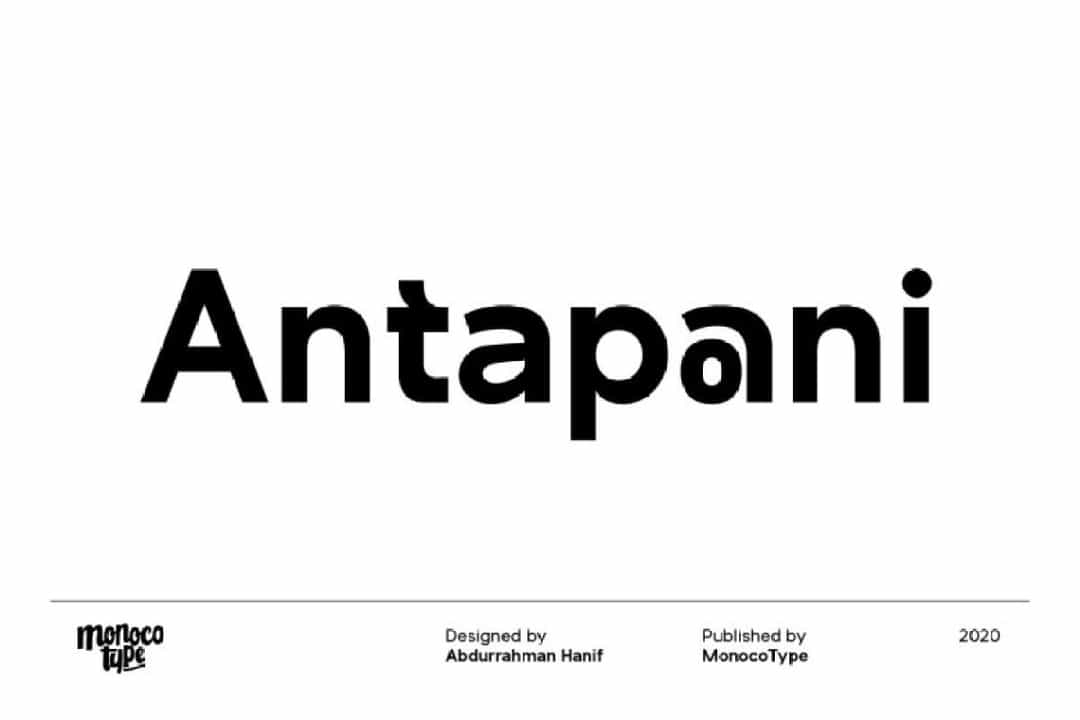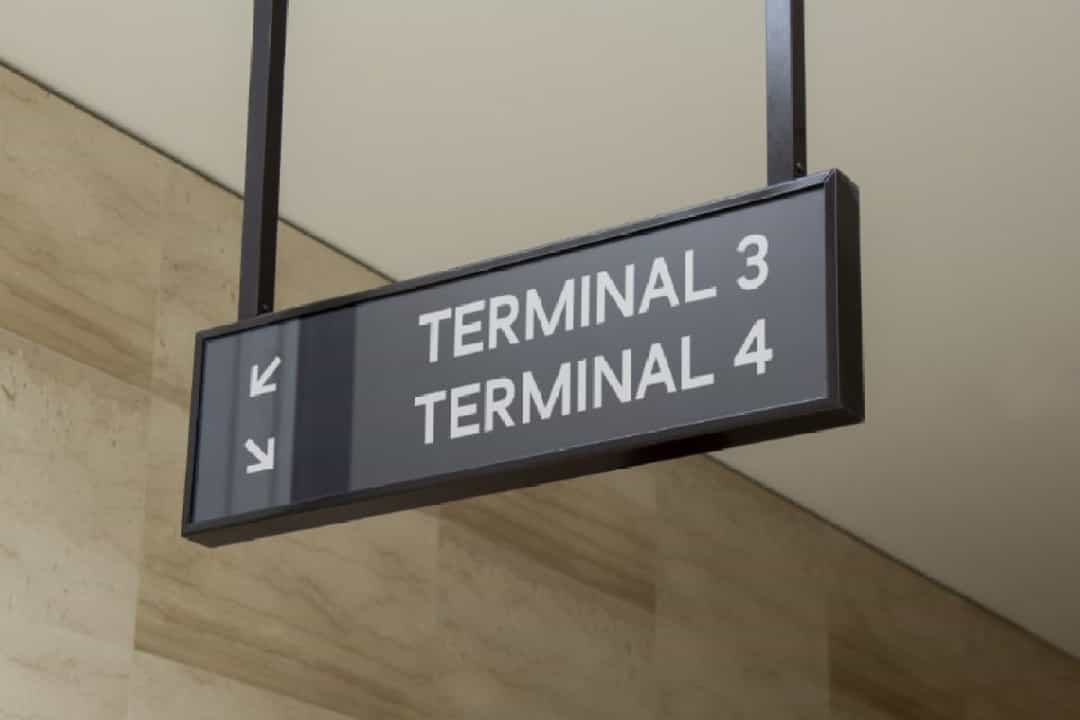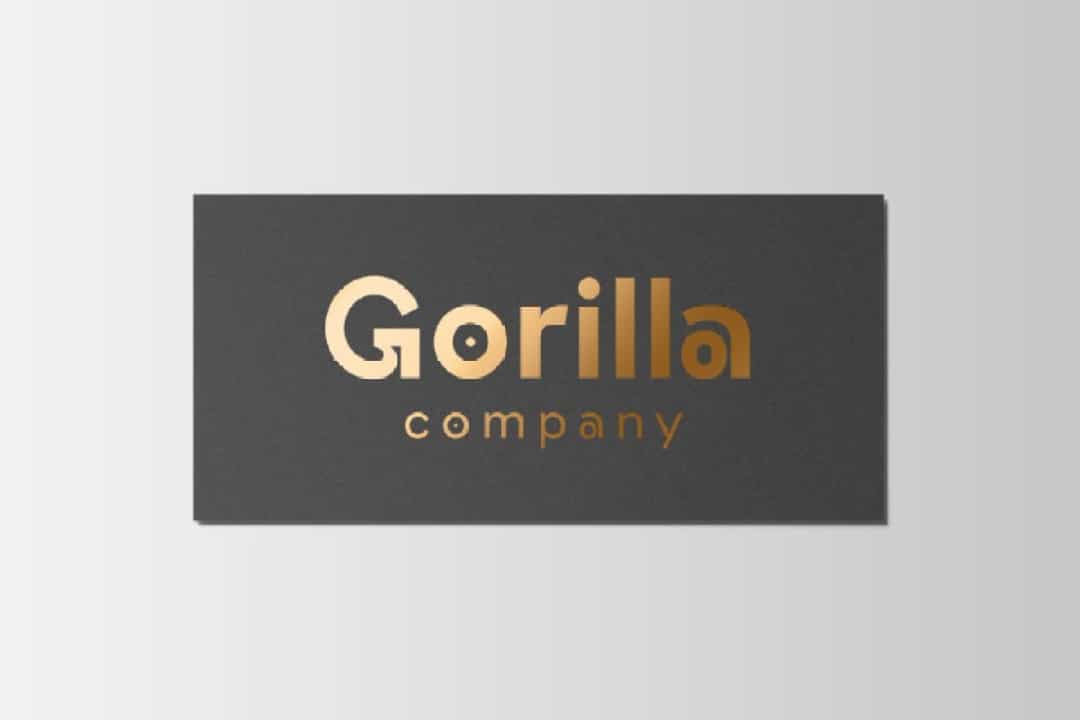
Antapani Sans Font Family
Antapani is a Grotesk sans typeface with some stylistic features to some letters. Created to be easily readable but also can be used as a display text. There are 9 styles from Thin to Extra Bold. You can choose the one which you want. Original in this aspect, it is open to the use of opentype features.